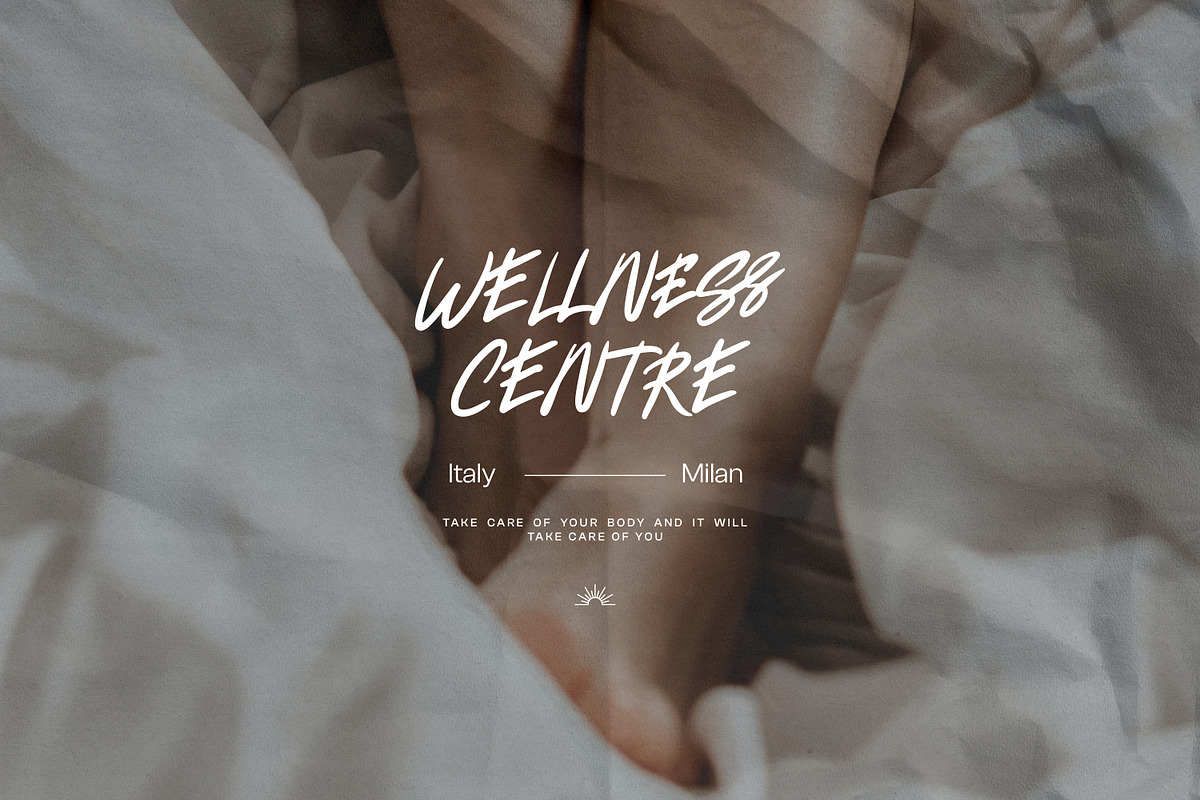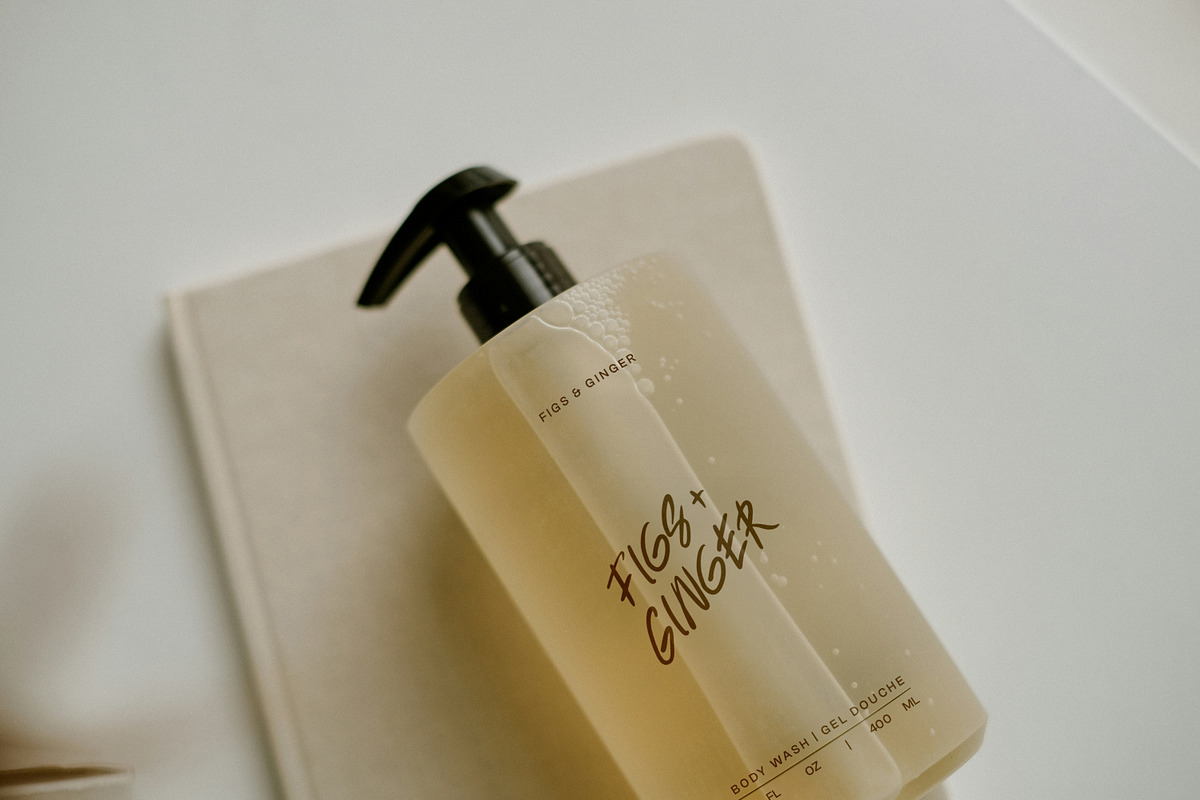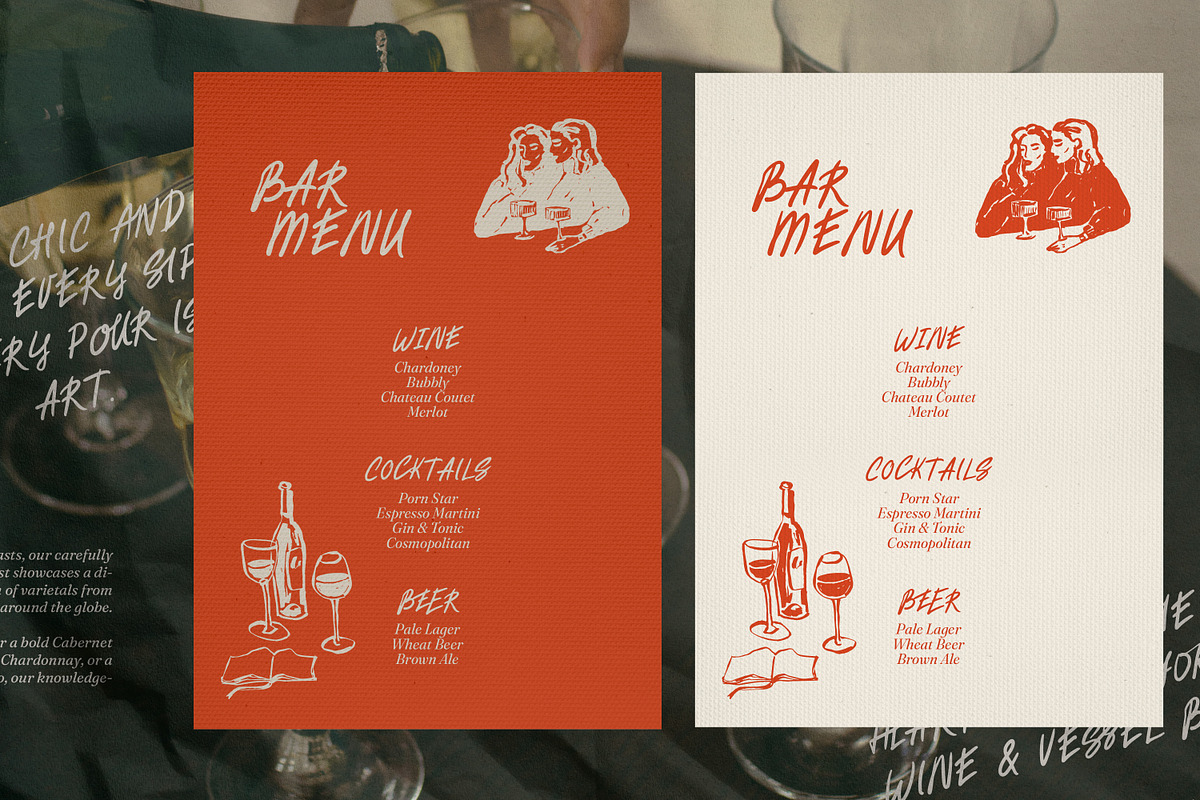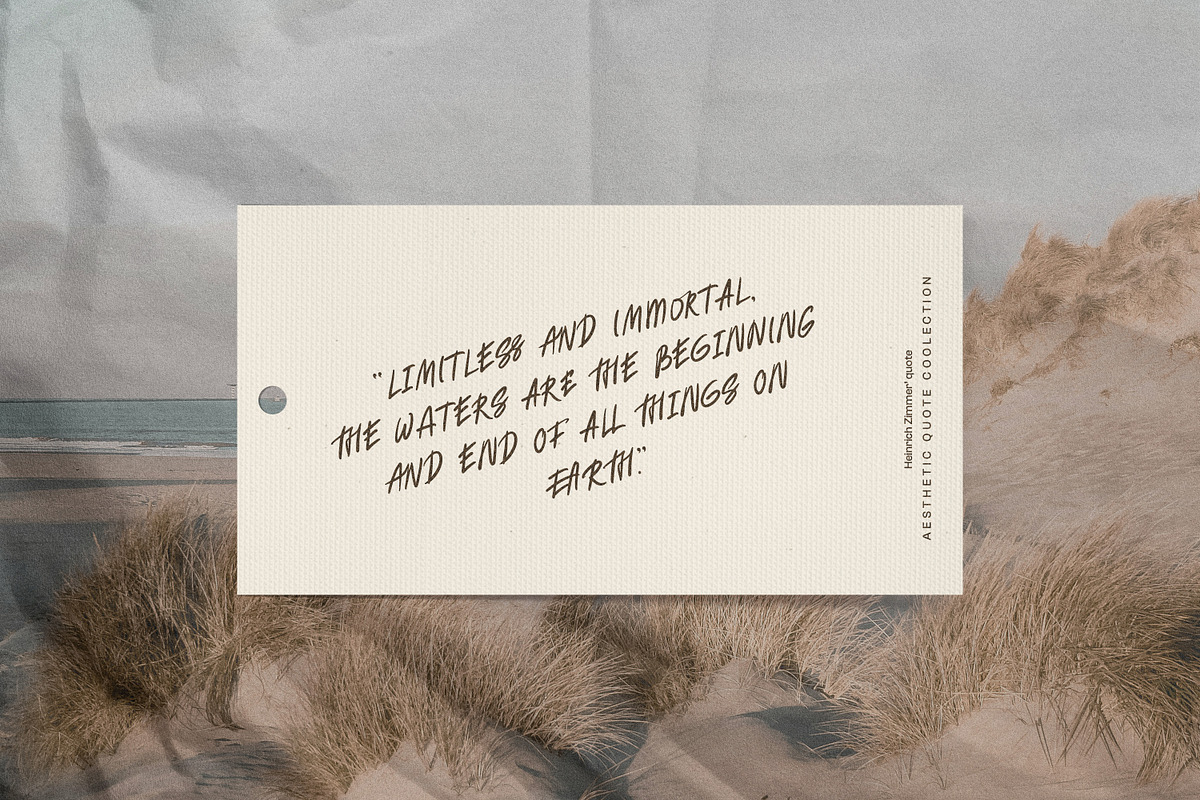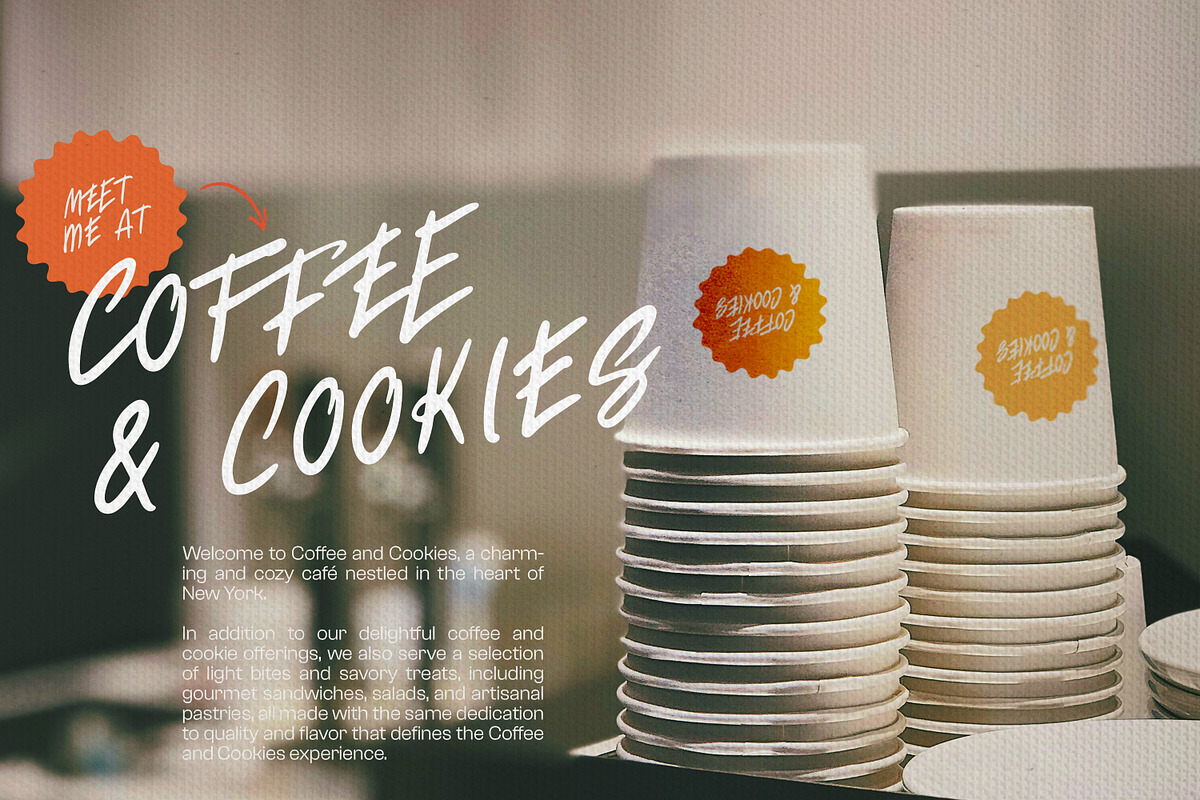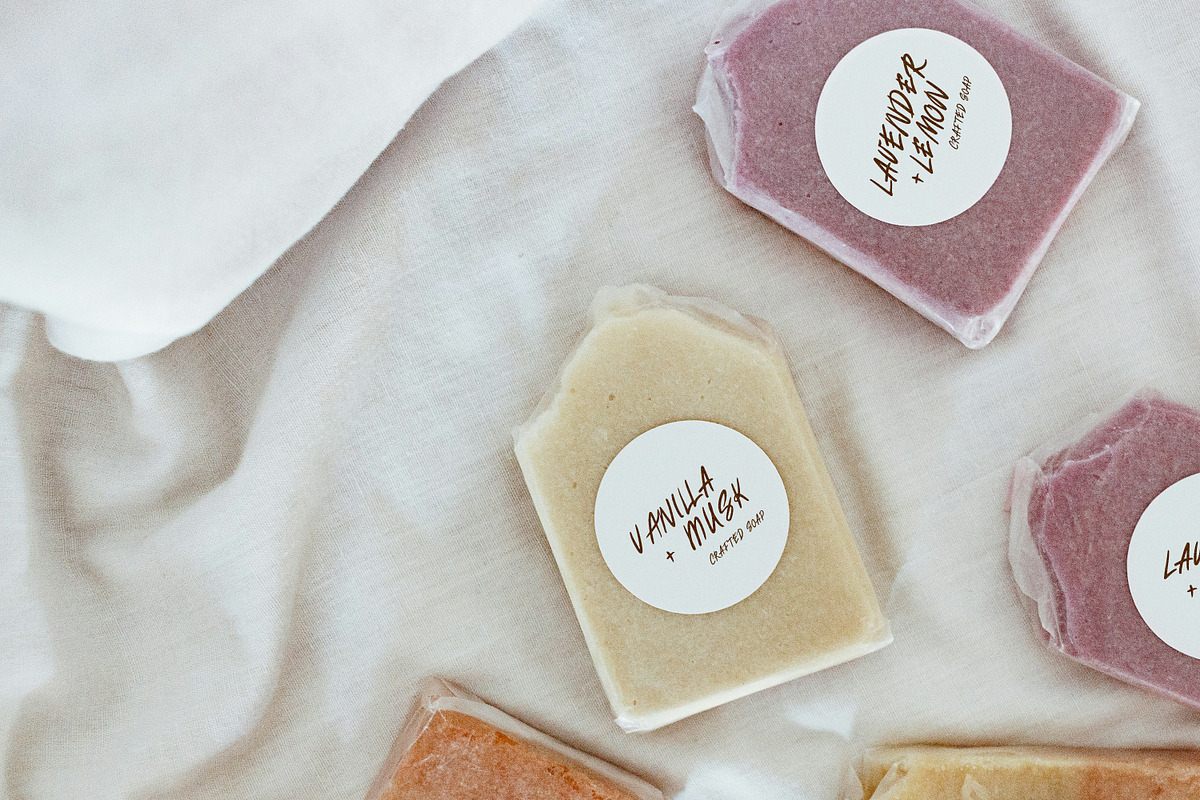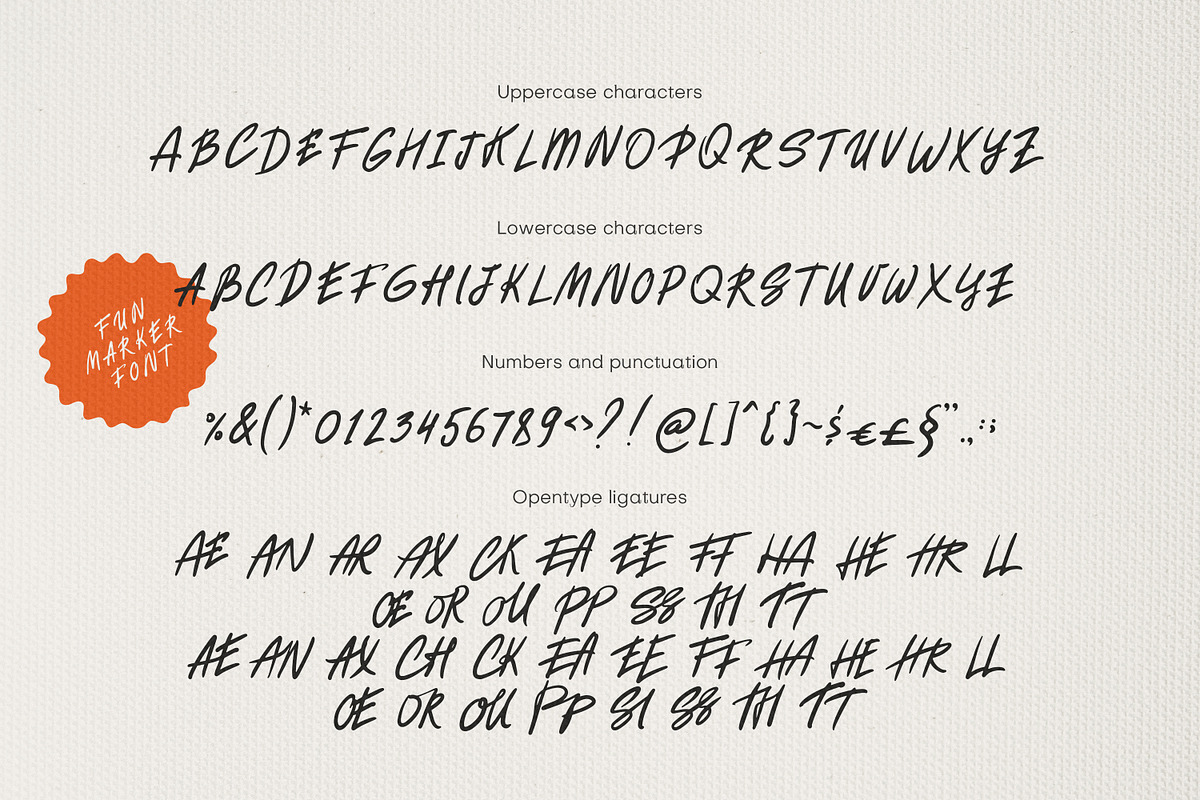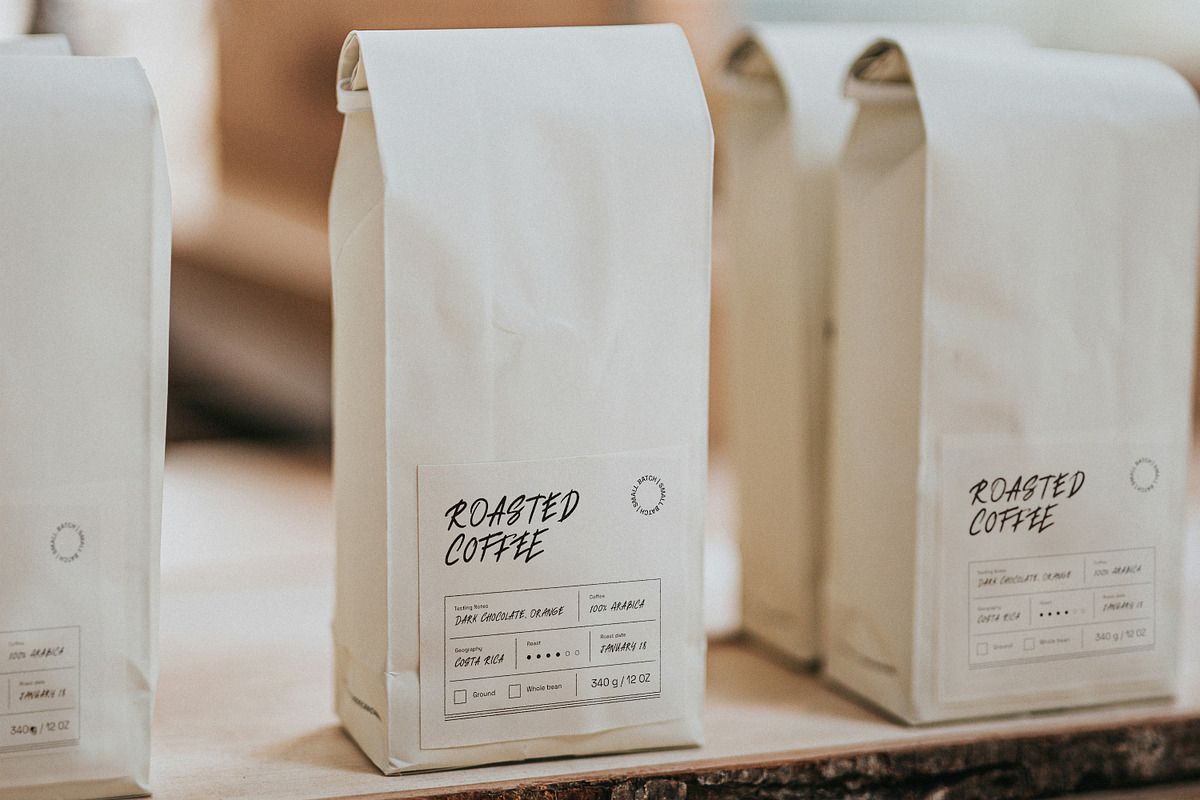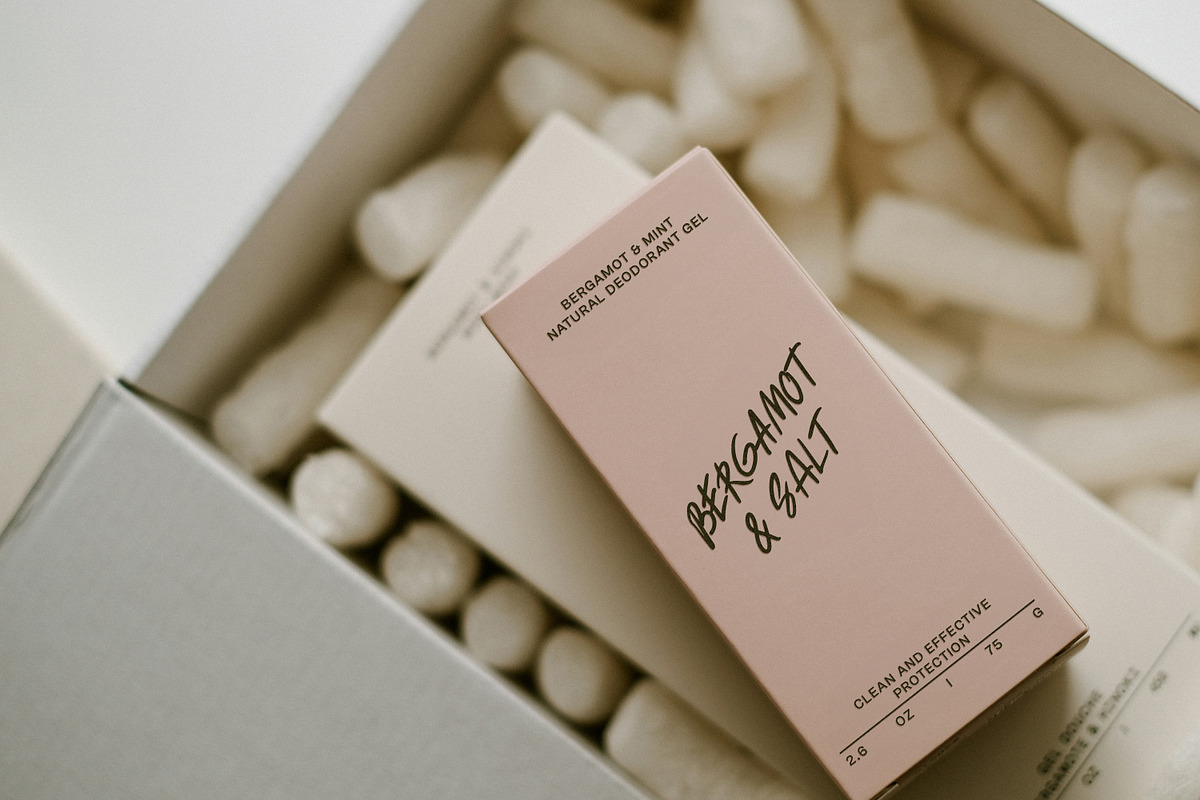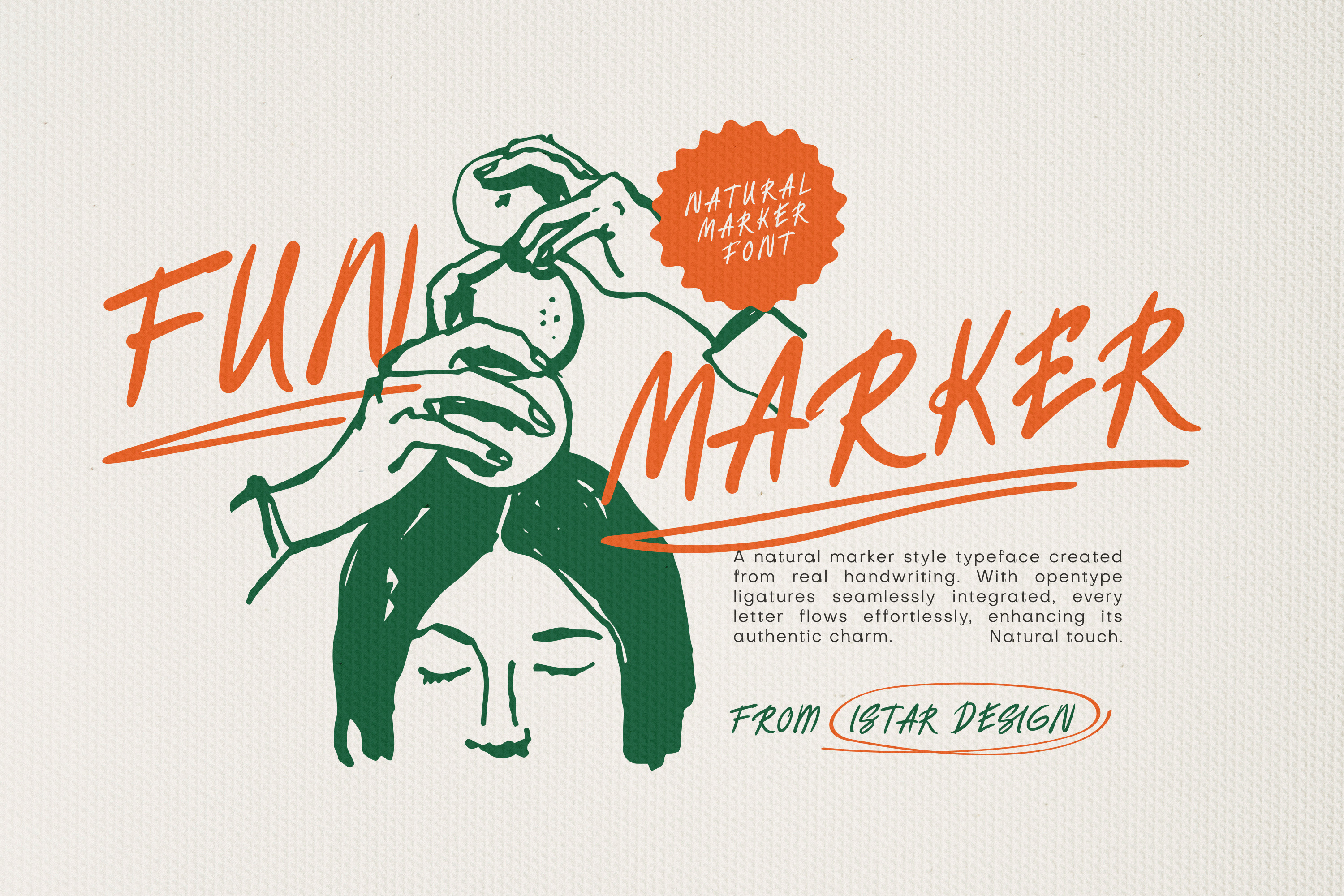
Fun marker Font and Doodles
Fun marker script is a natural marker style typeface created from real handwriting. With opentype ligatures seamlessly integrated, every letter flows effortlessly, enhancing its genuine charm. Perfect for adding a touch of authenticity to your personal journals, professional presentations, or creative projects. Extra: fun doodles, creates as a script.